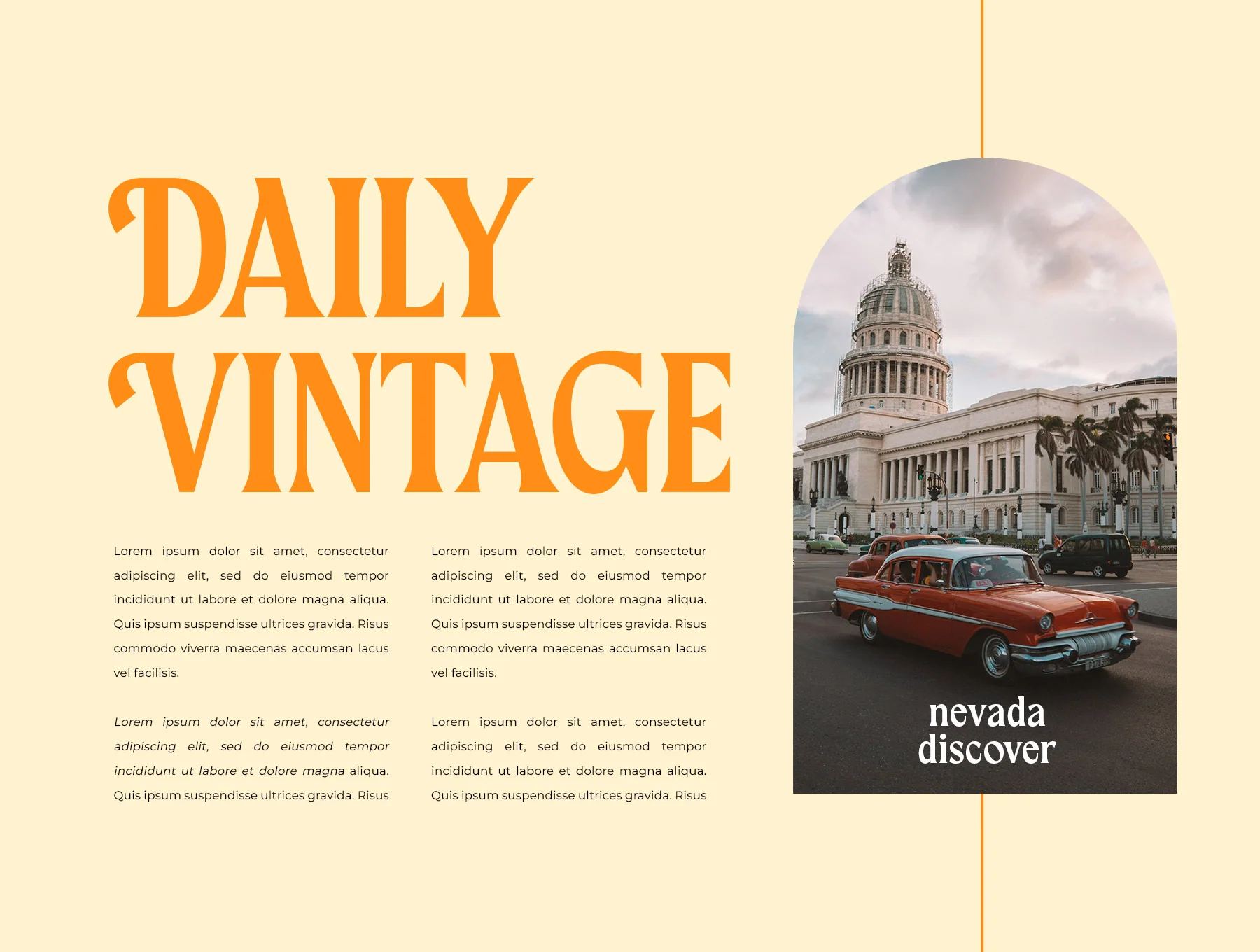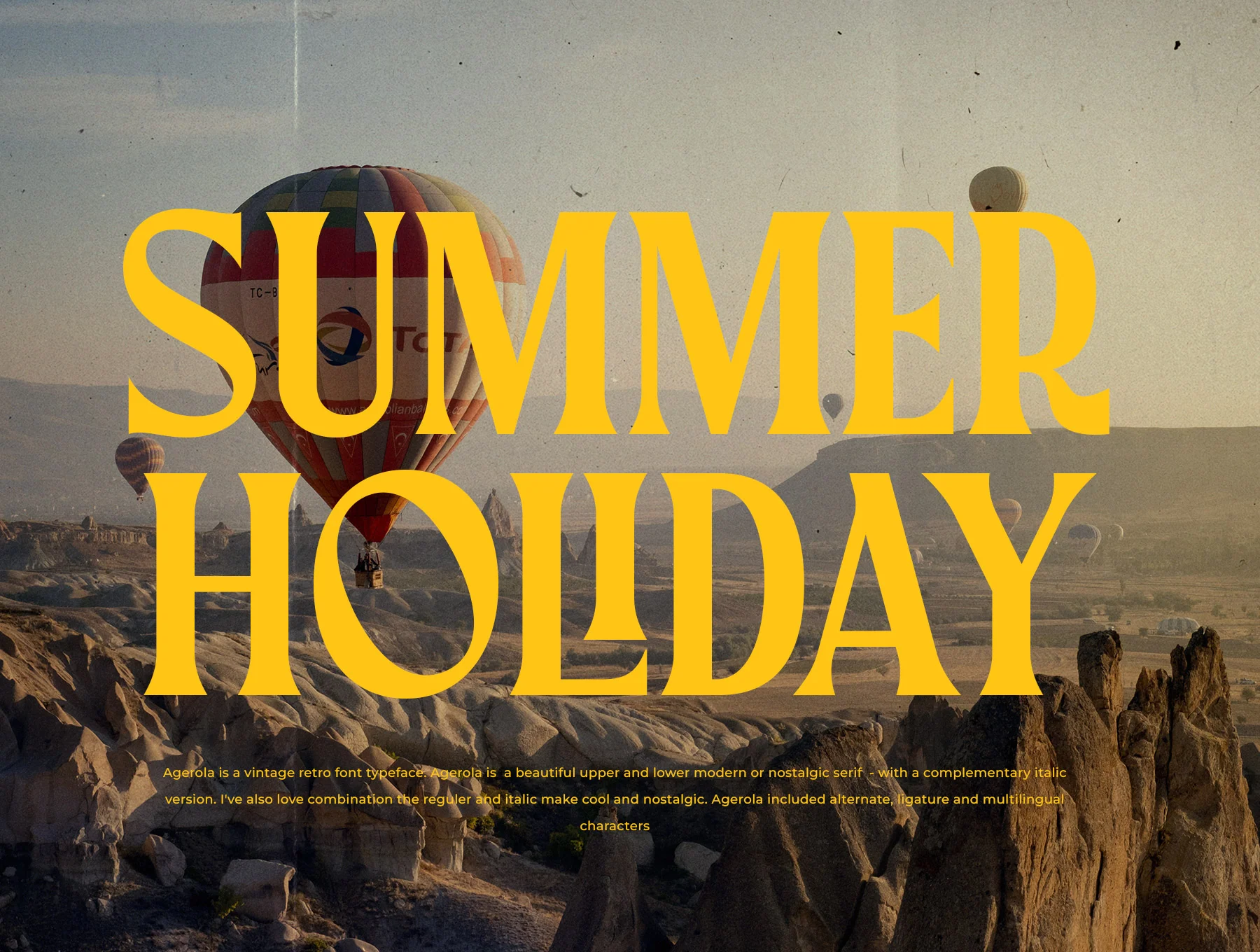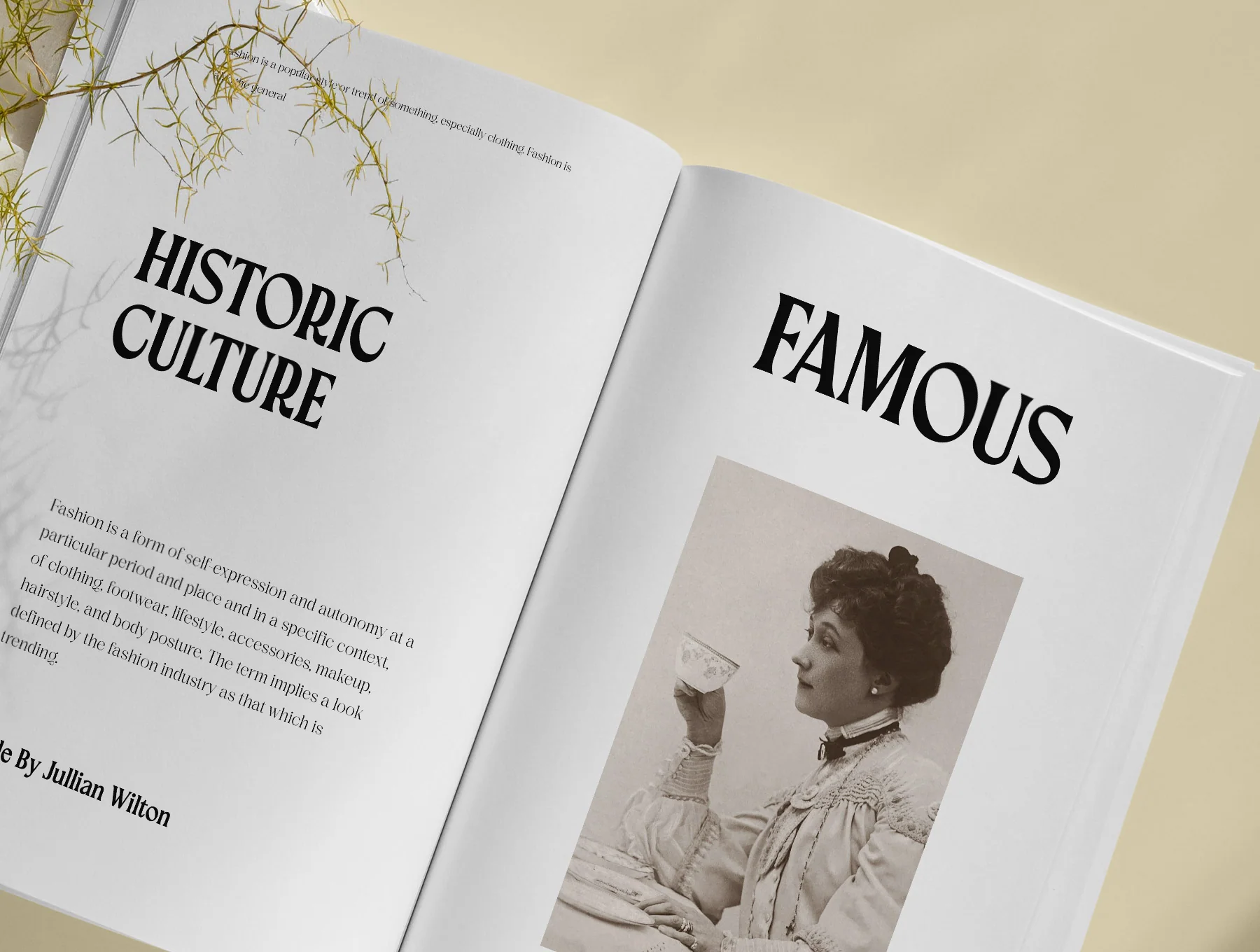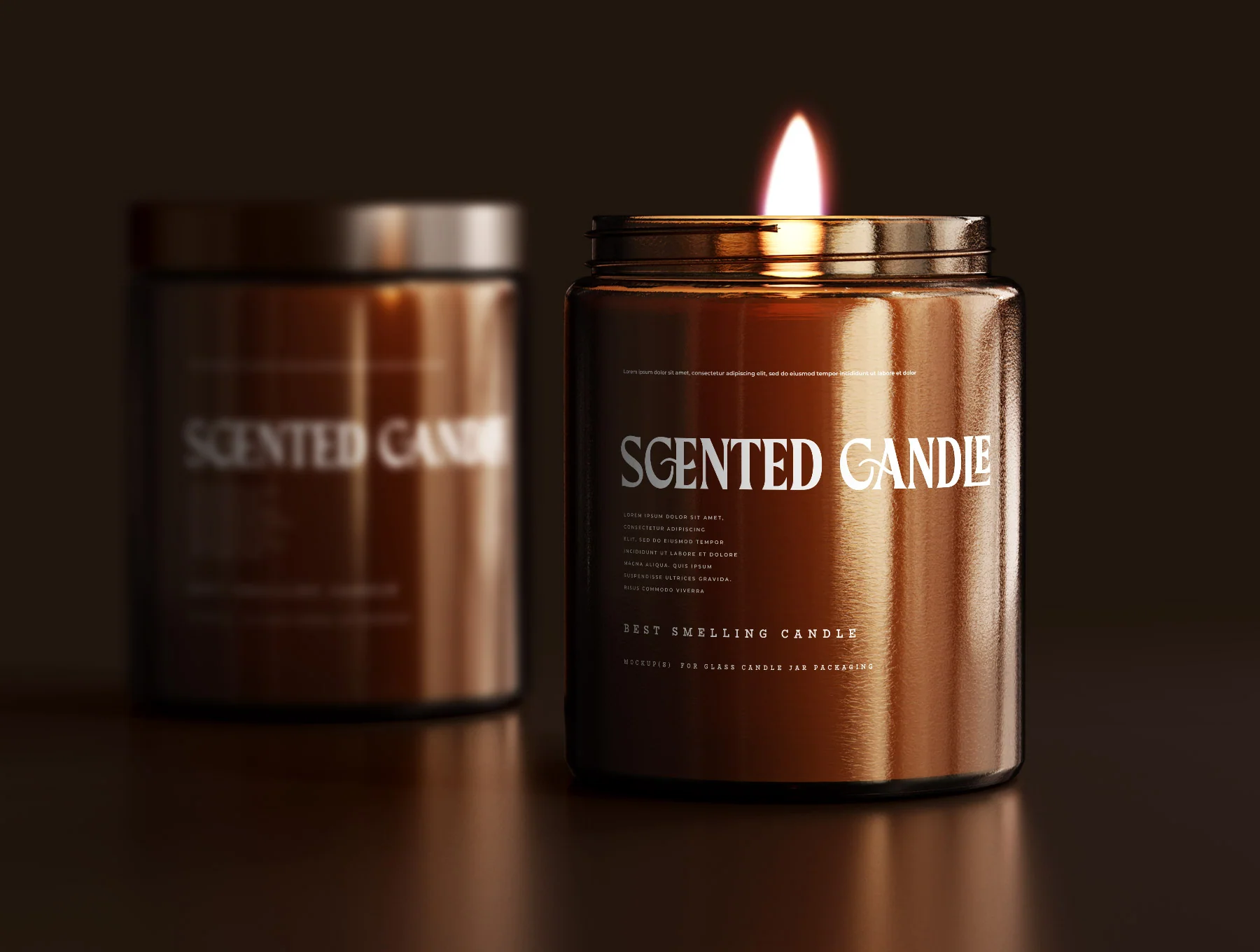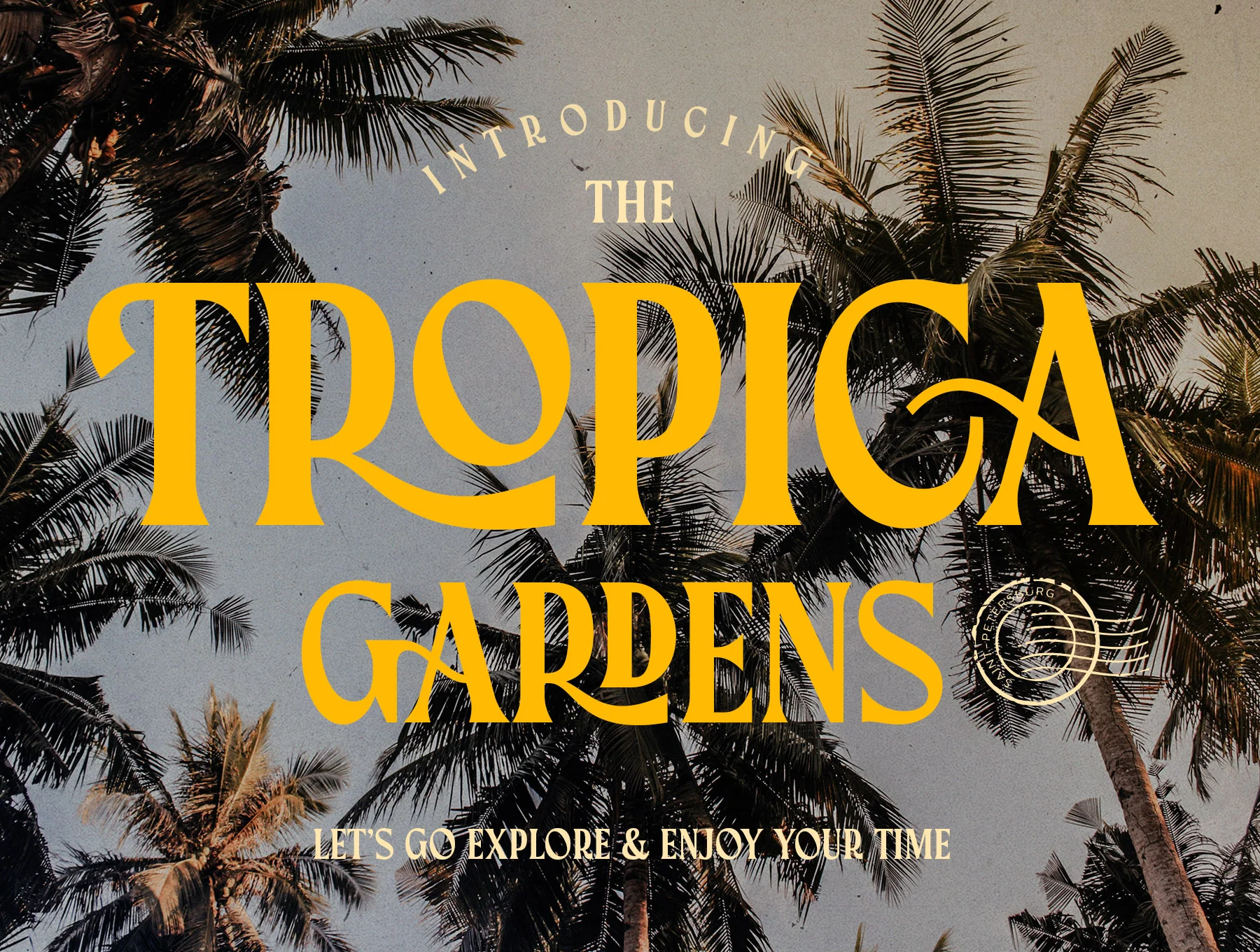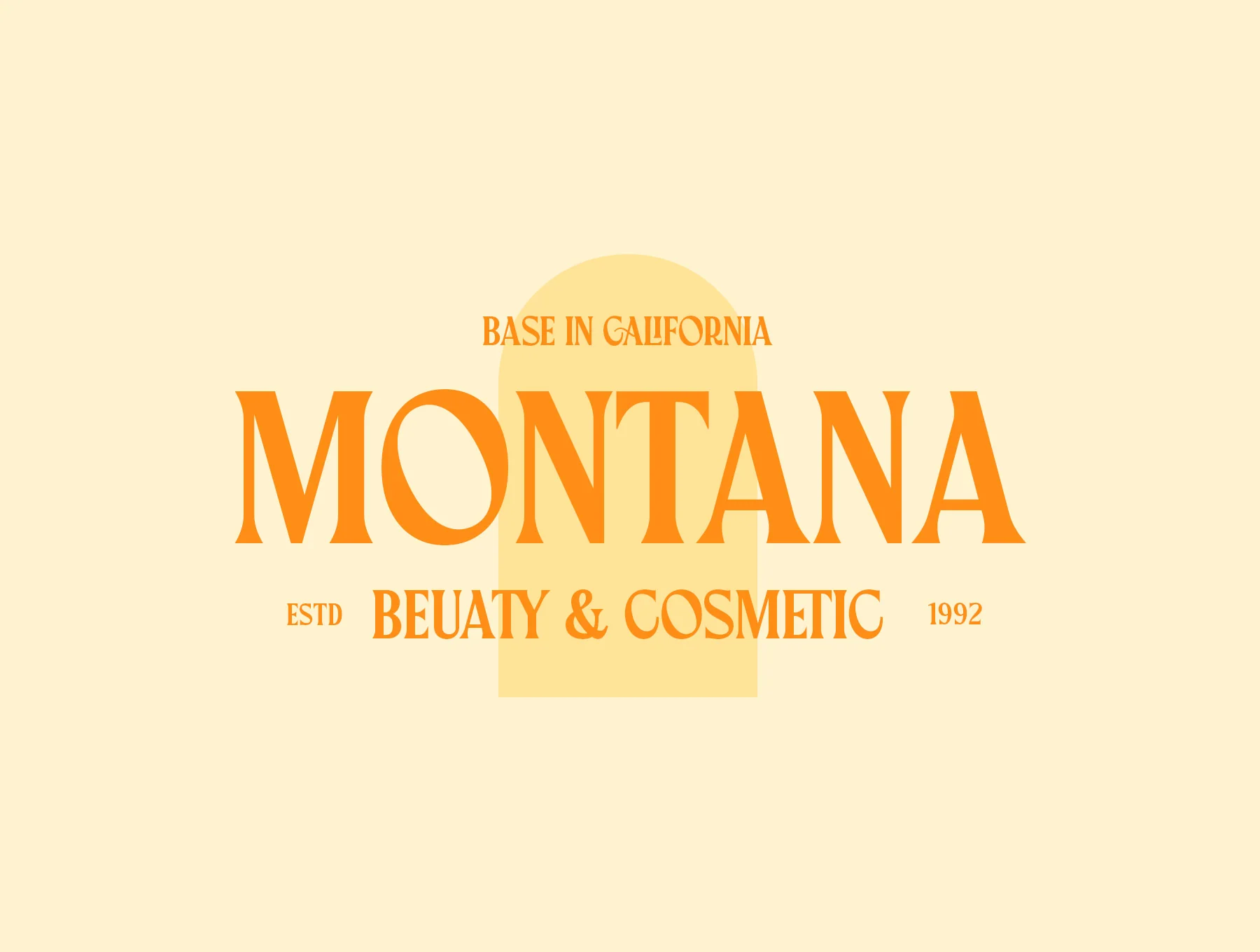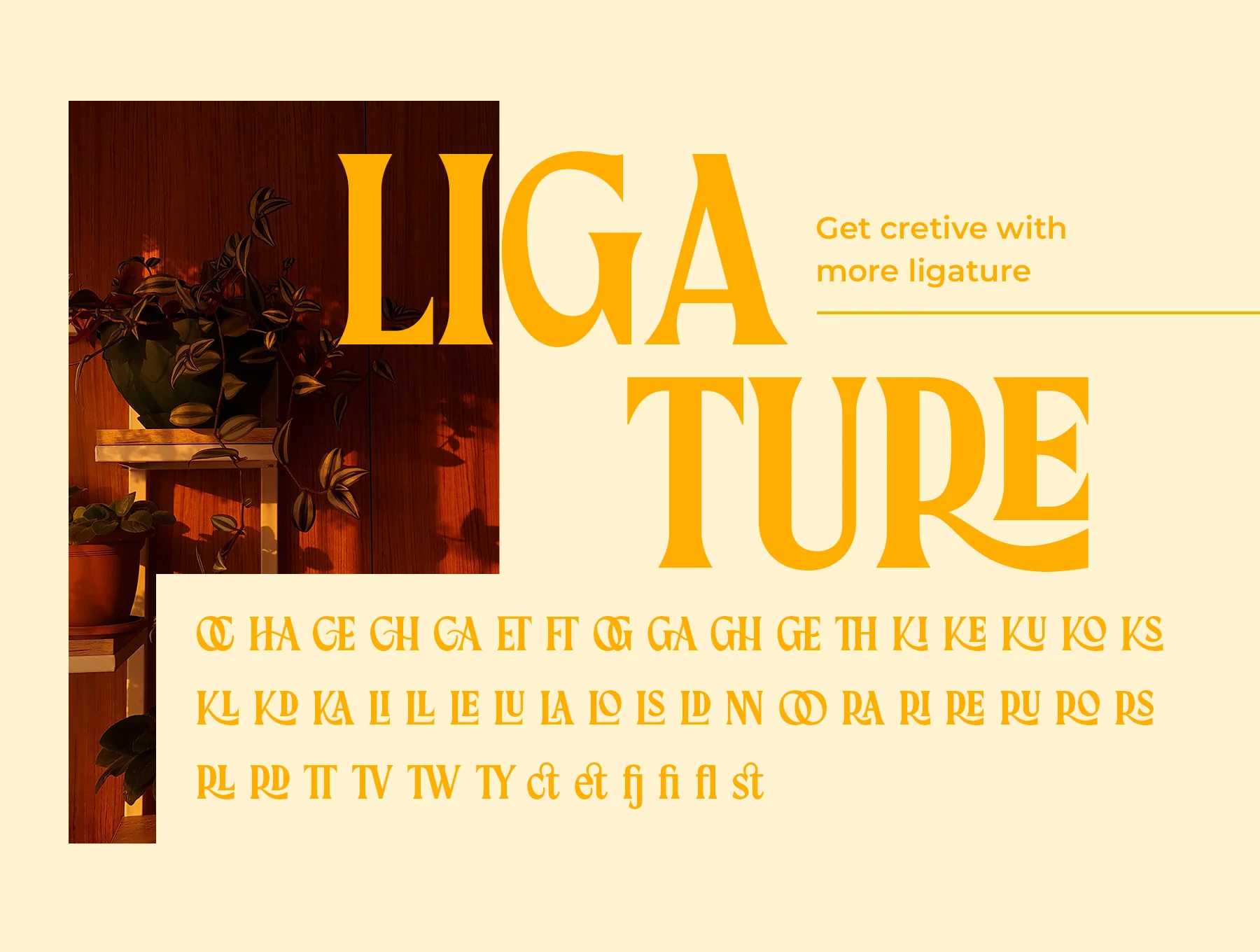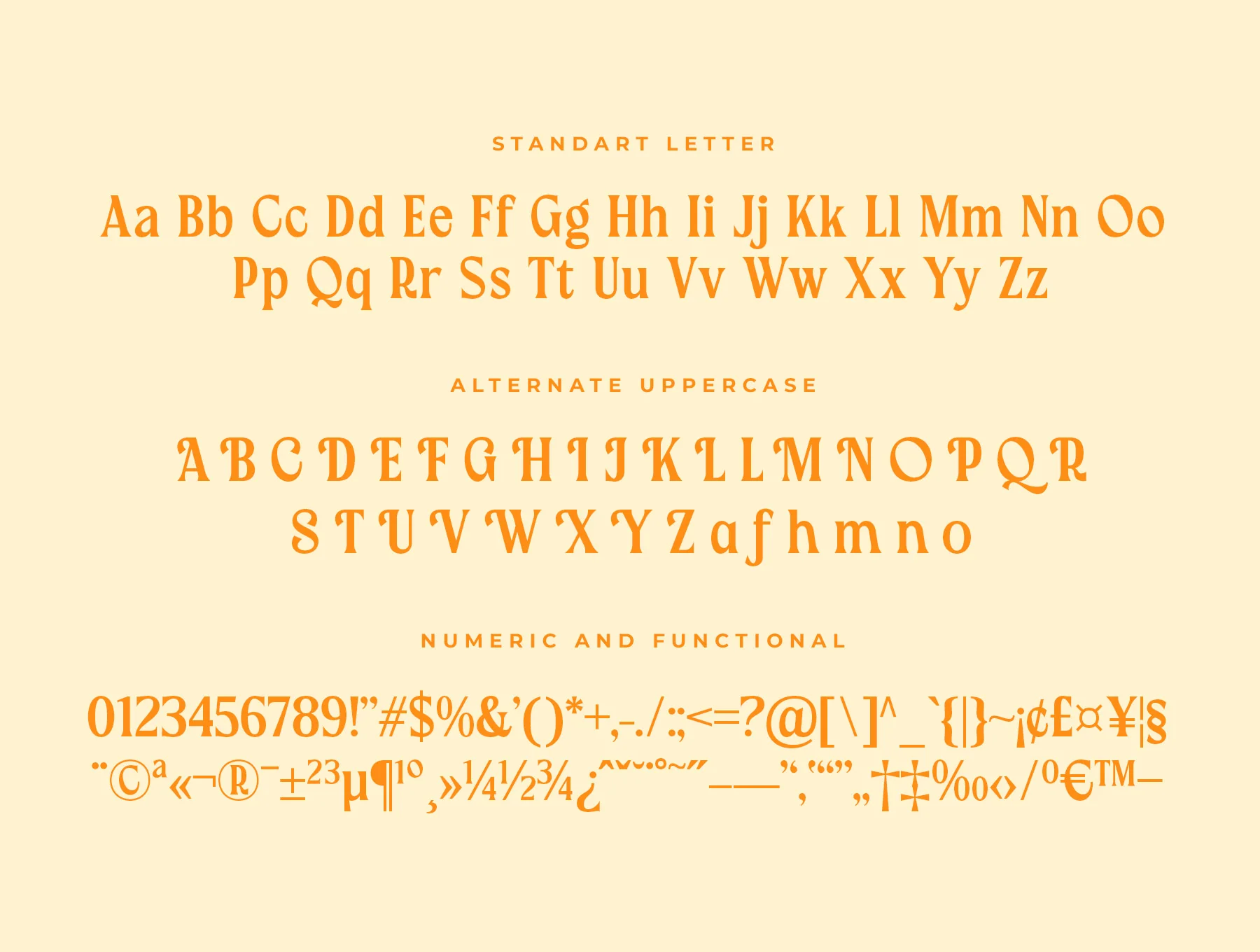
Agerola Retro Font
Old-school vintage typeface
Standard characters
Numerical and functional features
Alternates and ligatures
Agerola is a retro-inspired serif font with uppercase, lowercase, regular and italic styles for elegant vintage typography. Ideal for logos, titles, magazines, and lifestyle branding. Includes numbers, alternates, ligatures, multilingual support, and OTF, TTF, WOFF files. Easy to install on Mac/PC and usable in Adobe apps plus Microsoft Word.